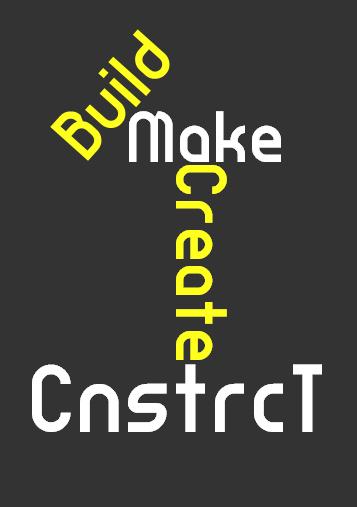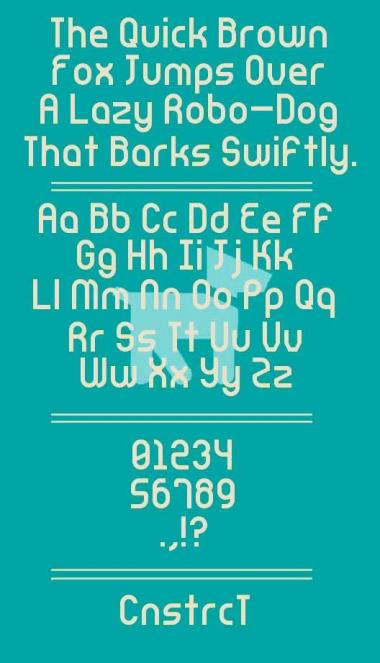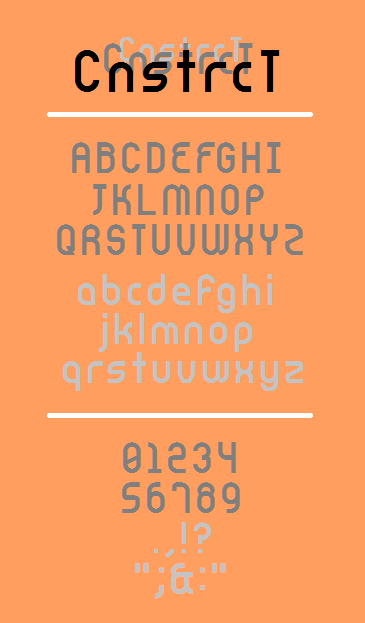
Inspired by Neoqueto's LDR MANUFACTURE and Global Village by JoeAllison. Feedback would be beyond nice! --This looks like it's about as done as its getting. I'll probably come back now and then to tweak a few letters and/or look at any suggestions though. And more than likely I'll try to add a few more. Enjoy for now though!--
I'm just making a few random type samples because for one, it's fun, and two, I can't think of any other ways to tweak stuff on here lol.
Fixed a majority of kerning issues. Not perfect, but it's workable. This is a screenshot showing it here.
The main fix here was for the 'f' and 'F', and the lc 'r' in text.
New ampersand. Just sayin. Pretty good to me. Especially since I hate tryin to make em lol.
Fantastic ampersand. I love this font, great work on the whole thing. This whole font is beautiful! Of course, it can be improved. Letters can be cleaned up here and there. But every font needs that. You have done a brilliant job here.
I agree; very pretty &! Also, I love what you did with your Q, very clever and cool looking. Wise optical corrections on the B, E, F, &, etc. with use of angled bricks at the intersection of curved strokes.
I suggest you revise your Y. It is similar to your y, but weaker. Since the symmetrical version is possible, a monocase form here feels unnecessary to me.
Your X and x can also be improved. The fat stroke linking the top and bottom curves is too dark, creating a kind of ink blot and eschewing the monoline scheme in the wrong direction. If anything, you want to add ink traps to those joins instead of bulking them up.
@will.i.ૐ: Thank you very much as well! You are definitely right about the symmetrical Y. It works much better. Especially now since I've played in 2:2 filters enough elsewhere to know how to fix it easy.
And as for the X and x. Hmm. Idk why I didn't think of that before. I fixed it now. Weird since I've done it that way in my newer ventures. Hmm. Oh well lol.
A new sample.
New sample that I'm very proud of lol. Paint works wonders sometimes :P
You can be proud : i love the use of colors making the eyes uneasy. I often search that effect in my samples, you may have noticed it
@neurone: Lol I did notice that, but I didn't realize I noticed till you said it. Maybe subconsiously I was aiming for that all along when making this one. :P